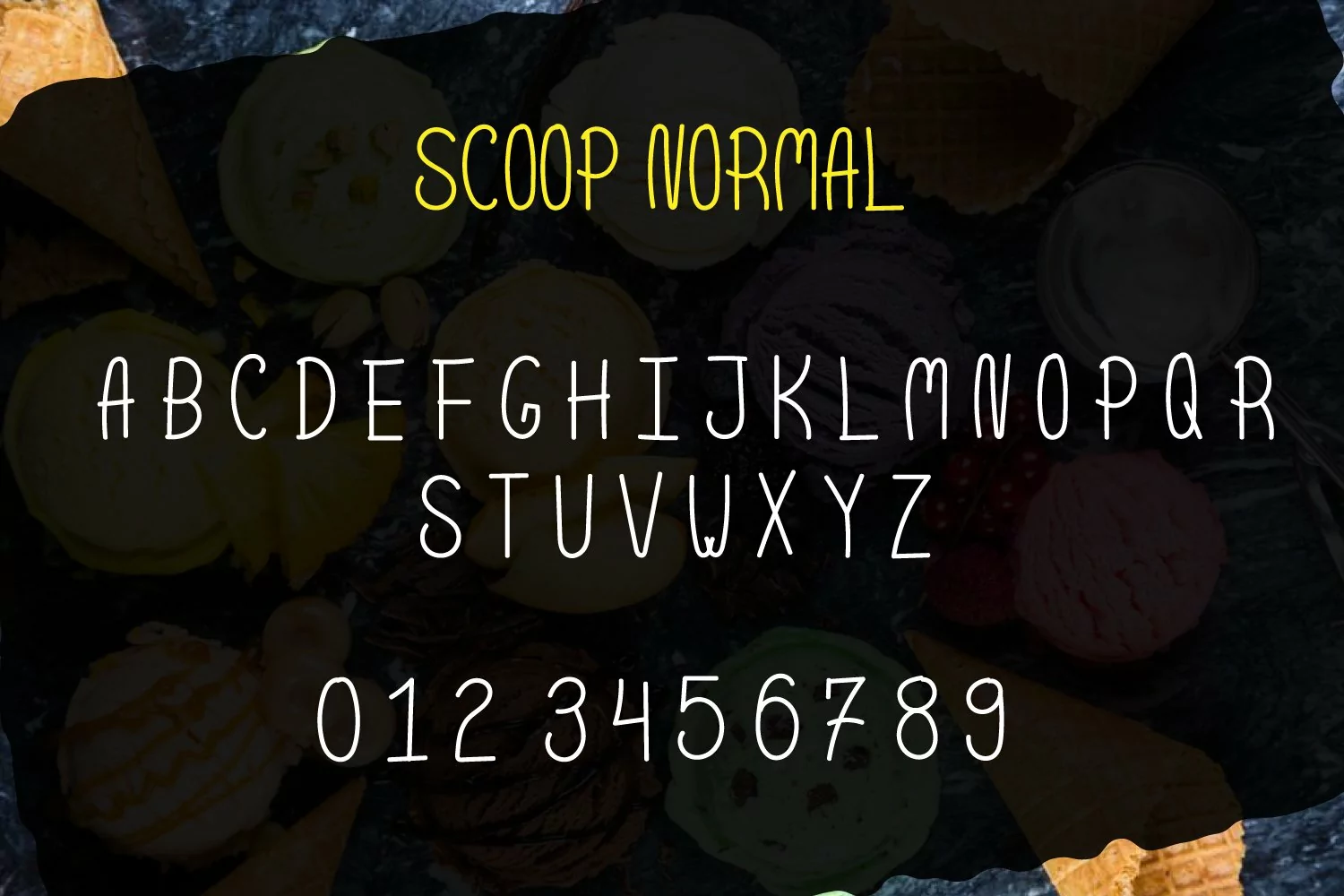
Scoop - Delicious Handdrawn Font
Presenting one of the finest hand drawn fonts for foodies lovers and this font comes with 2x unique style one with butter melt style and other normal. This font is made for everyone who want to add hand made font to their collection and make amazing designs from it.
The best thing about this font is that it all uppercase and with 0 to 9 numbers so, you can create fun project in style. Do remember that this font is only available on designsbundle and can not be found anywhere else so, get benefit by buying it from here and say or express your thoughts in words.